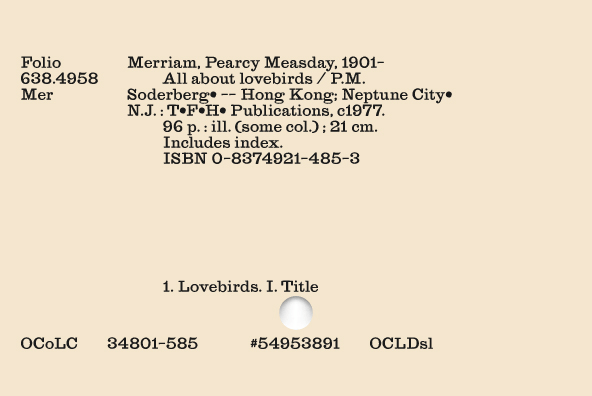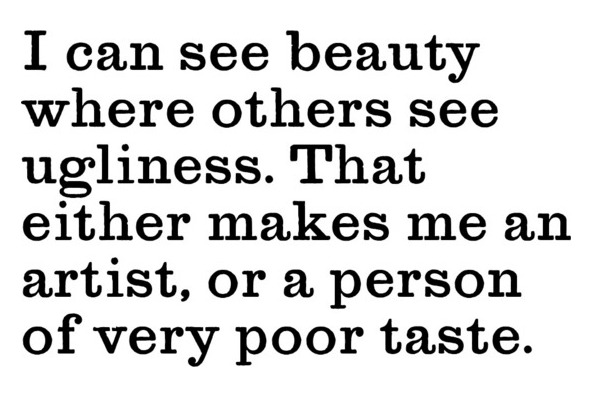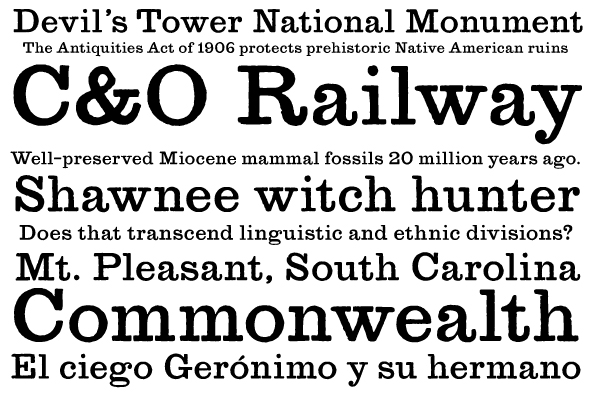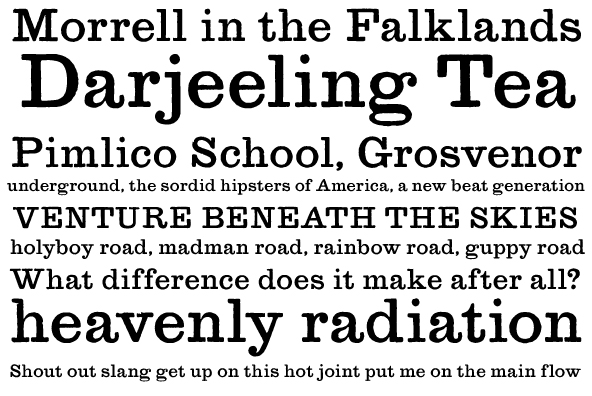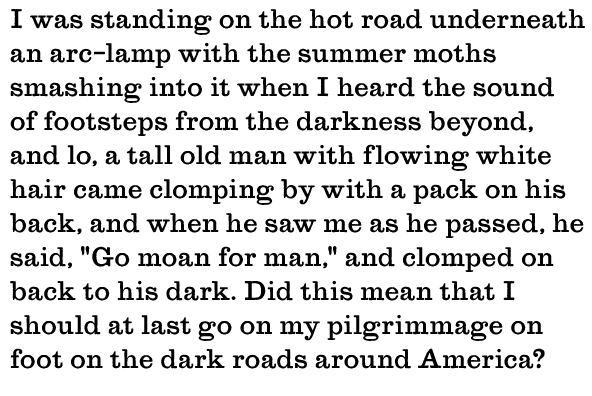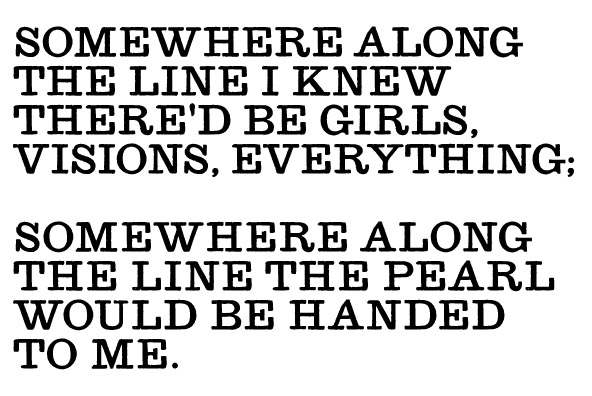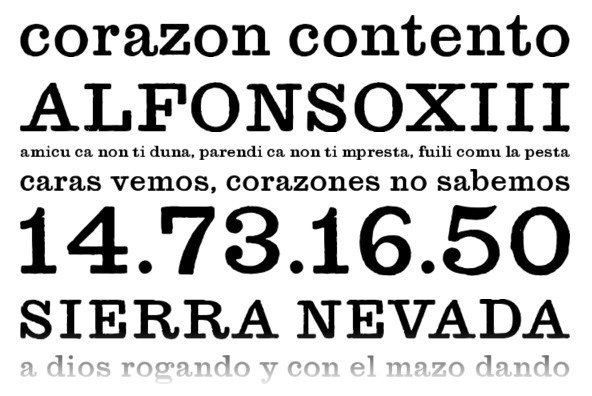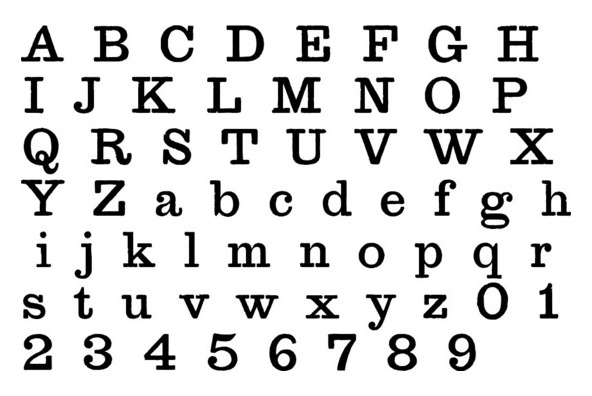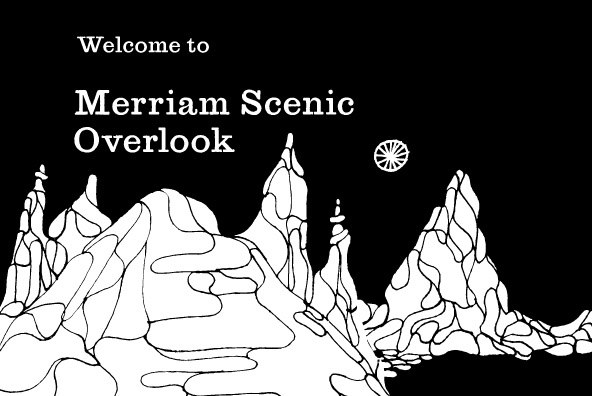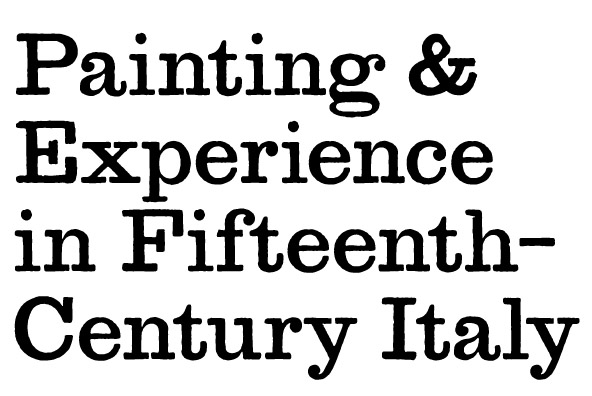
YWFT Merriam
When you're experiencing the sort of rainy weather that calls for an English slab-serif typeface such as Clarendon, reach instead for YWFT Merriam. With a smaller x-height and hand-drawn distressed texture amongst other stylistic variations, YWFT Merriam's textured characters have the appearance of antique printing or weather-worn sign painting, making the font an excellent choice for easy typesetting. YWFT Merriam is available in opentype format and supports most western languages. Designed exclusively by Michael Cina and YouWorkForThem.